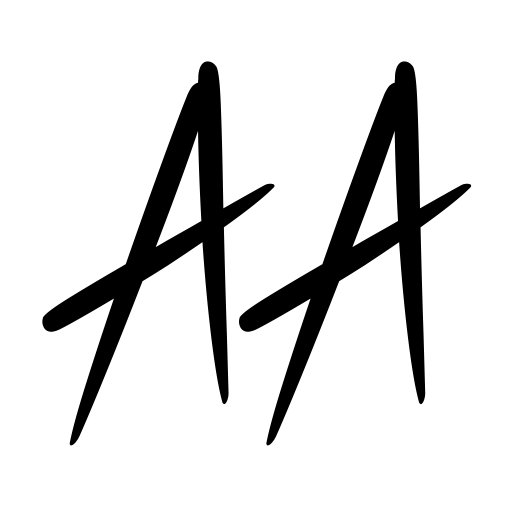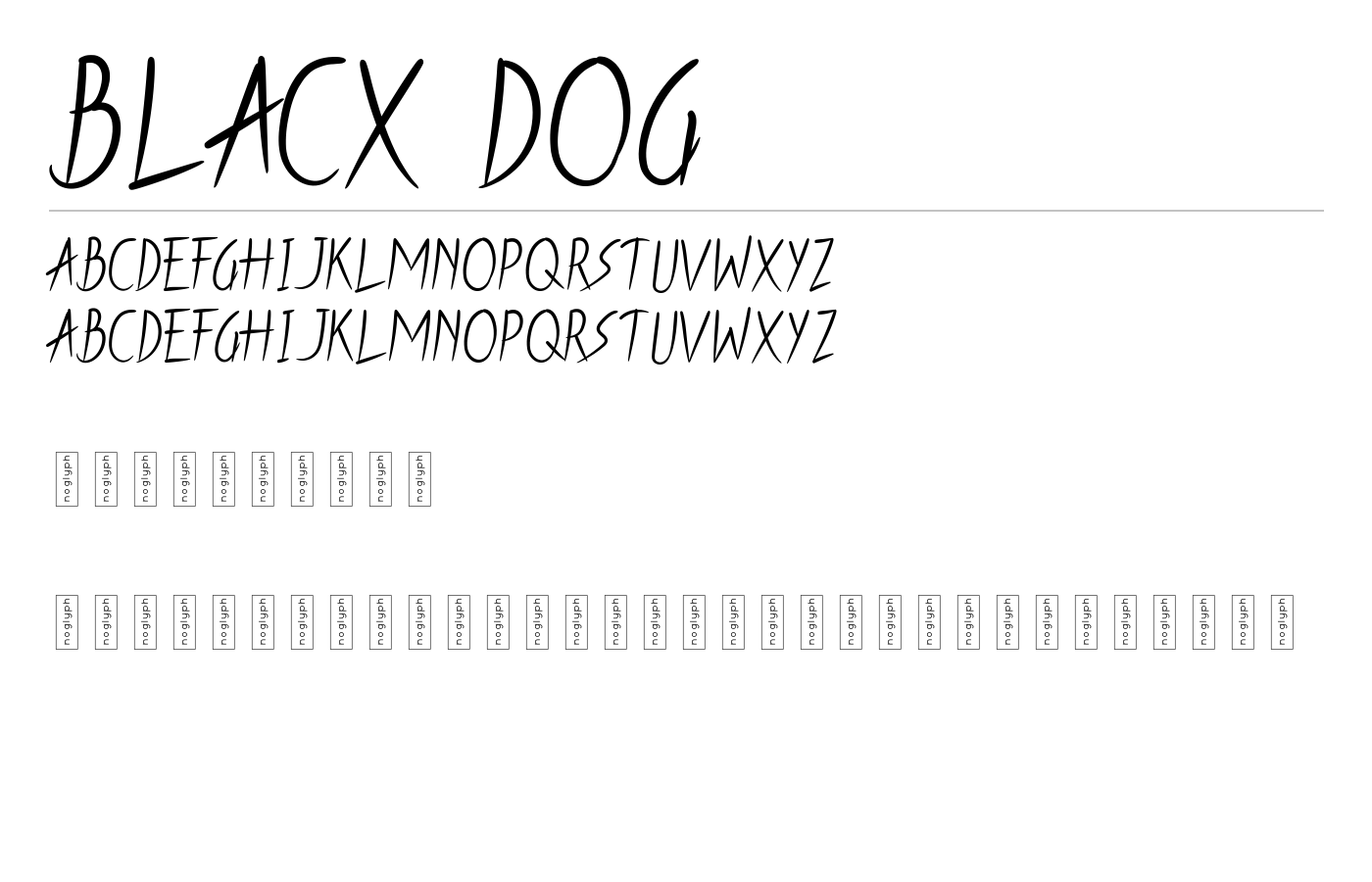
BLacx Dog is a thin, condensed handwritten font with a playful and casual vibe. Its tall, narrow letterforms and irregular strokes give it an energetic, informal feel perfect for creative and artistic designs. This font works well for eye-catching headlines, posters, and branding that seeks a personal, quirky touch.
BLacx Dog Font
About BLacx Dog Font
| Font family | BLacx Dog Font |
| Designer | @setyisiam |